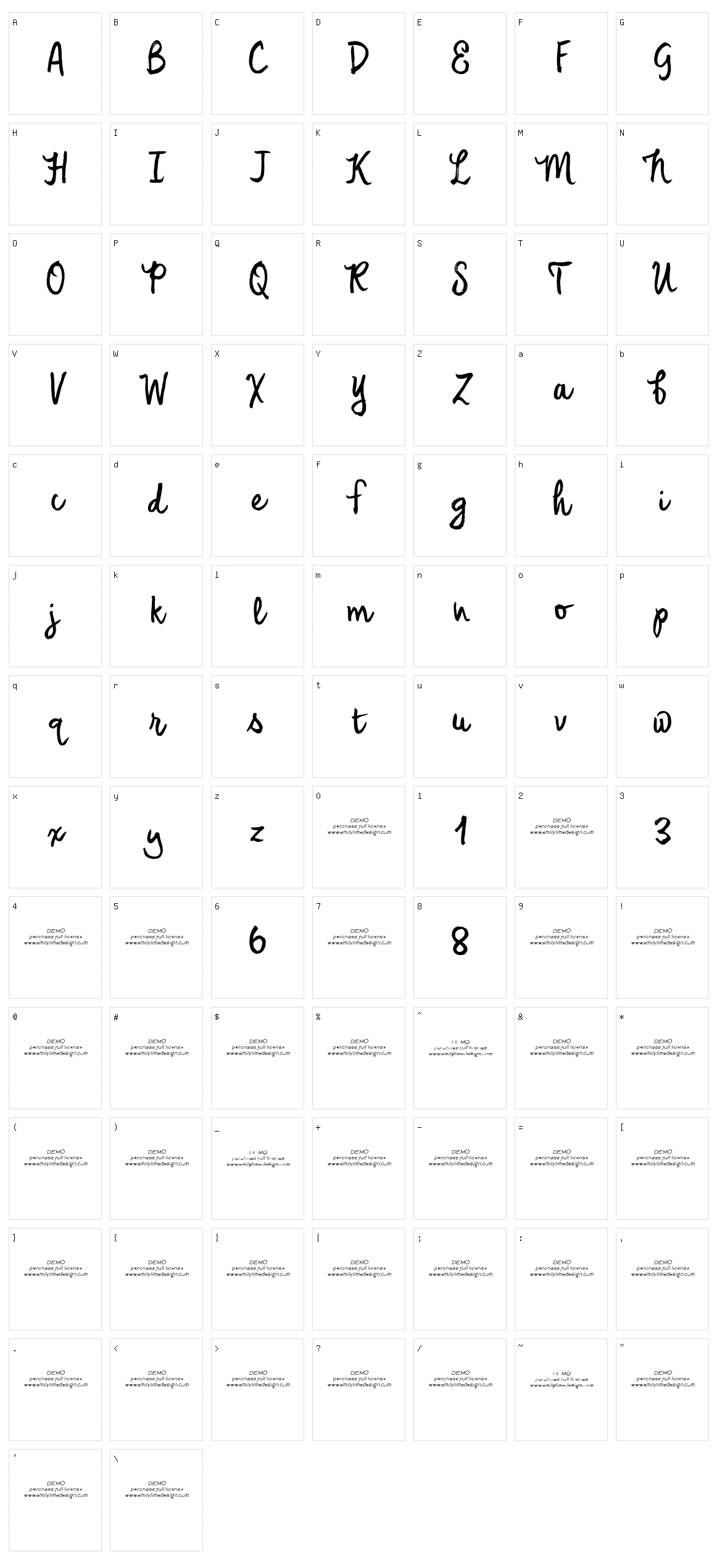
The free font Emily Lime Brush is carefully designed by Emily Lime Design, showcasing a thoughtful balance of creativity and usability and falls under the Script font style. When you download the ZIP file, it contains only 437.52 KB of font files, making it lightweight and quick to download. Please review the license details below to understand permitted usage and distribution rights. If license information is not available, we recommend using this font for personal projects only or contacting the author directly for commercial usage permissions.